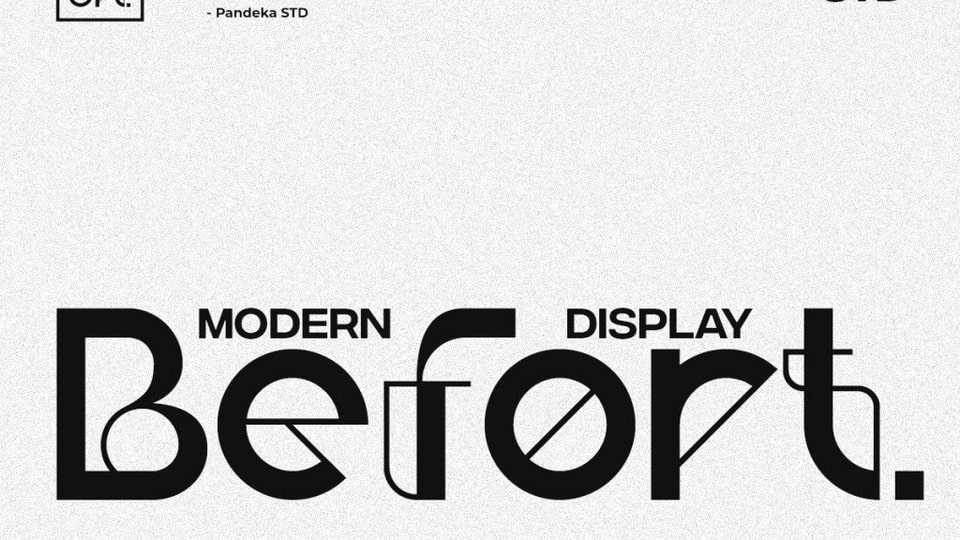
Download Befort font, a sleek modern display typeface that effortlessly blends straight lines with subtle curves to create a unique and sophisticated look.